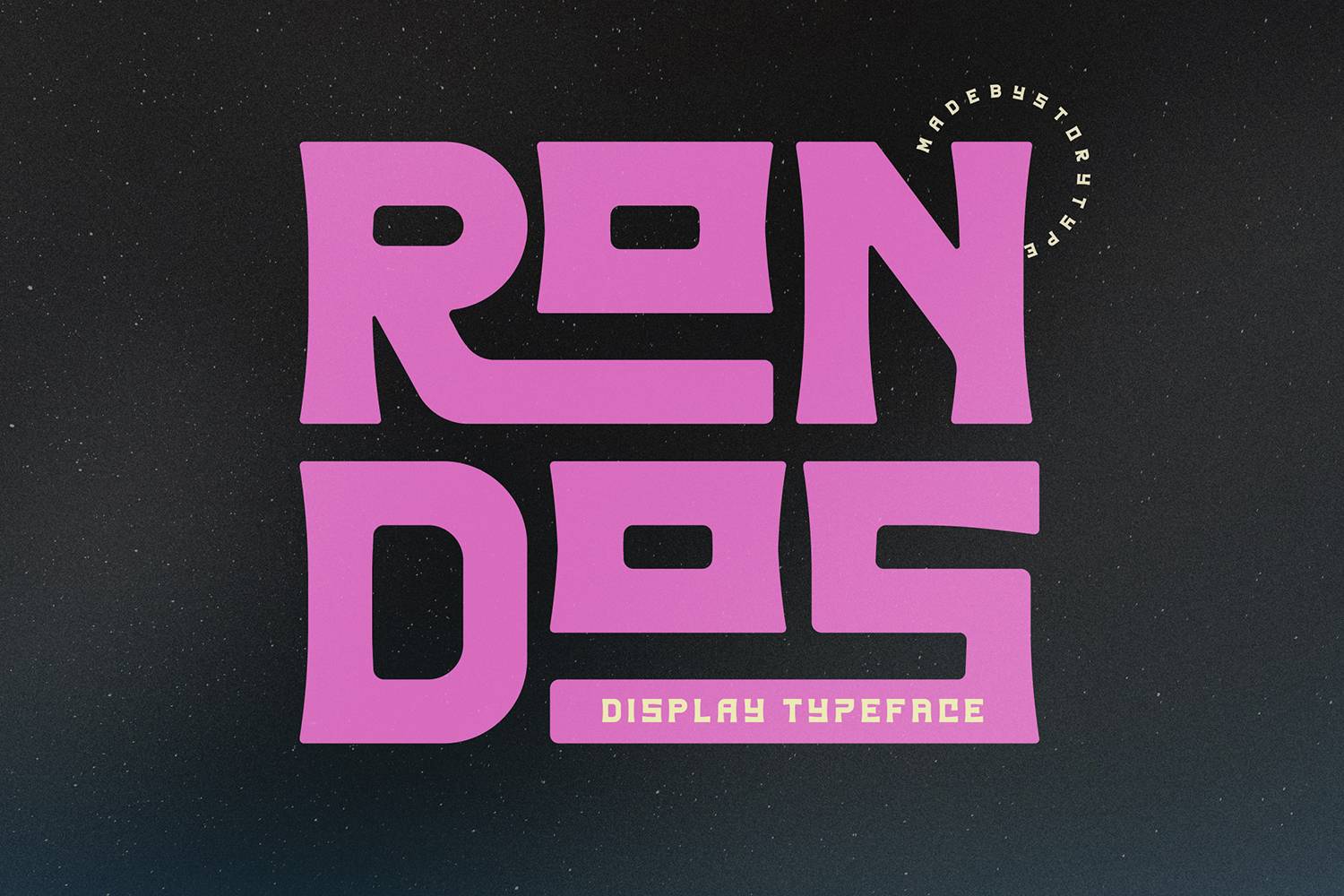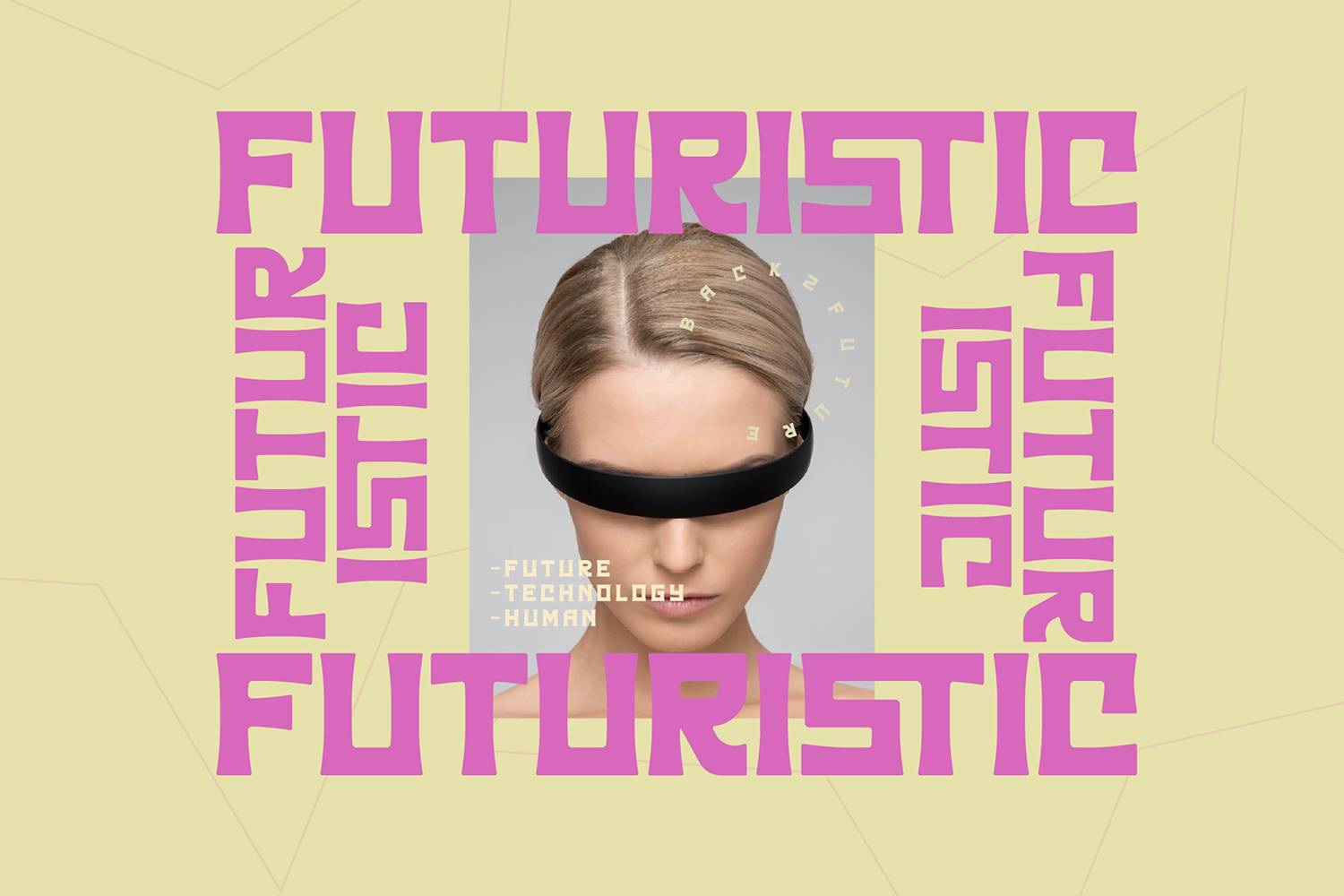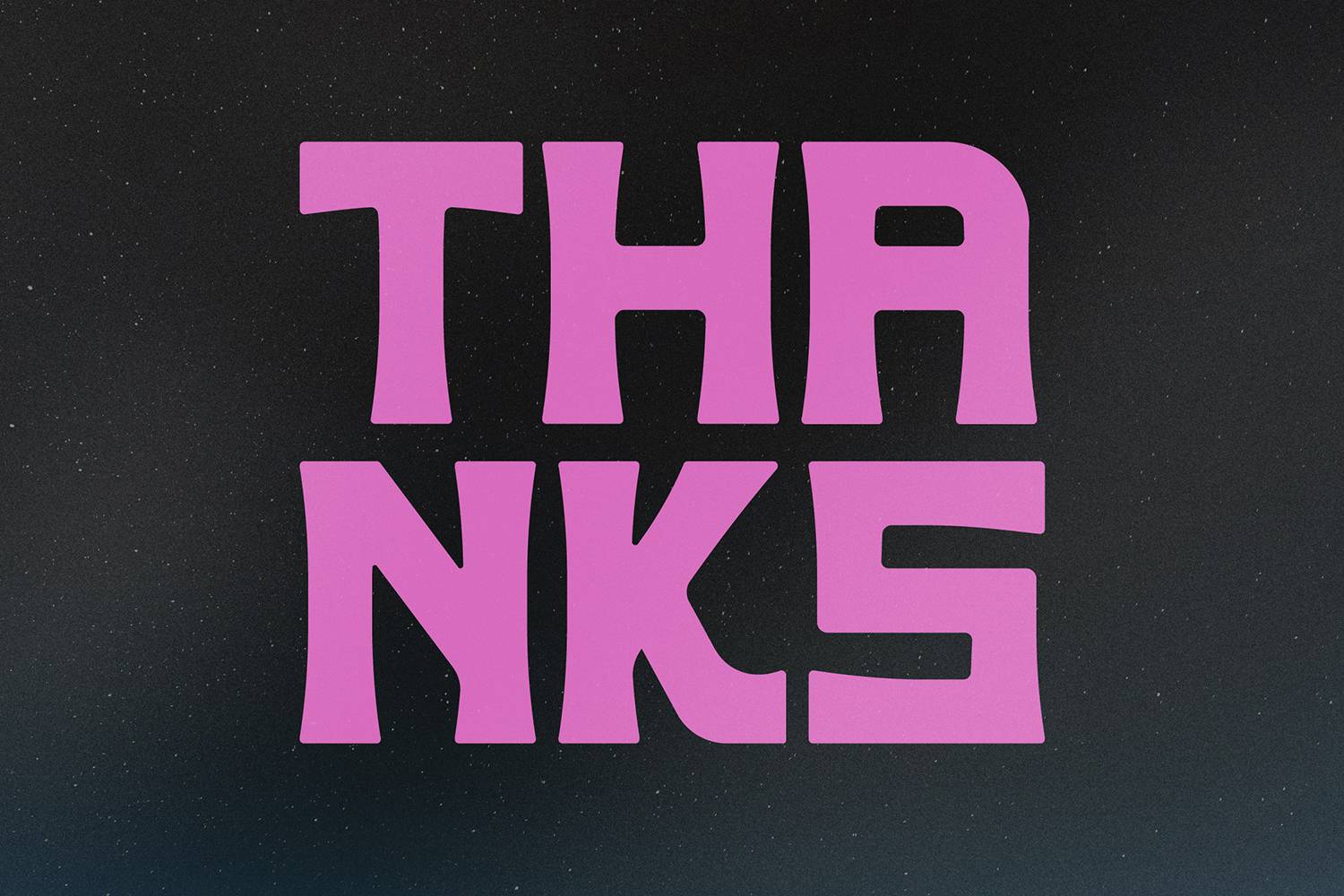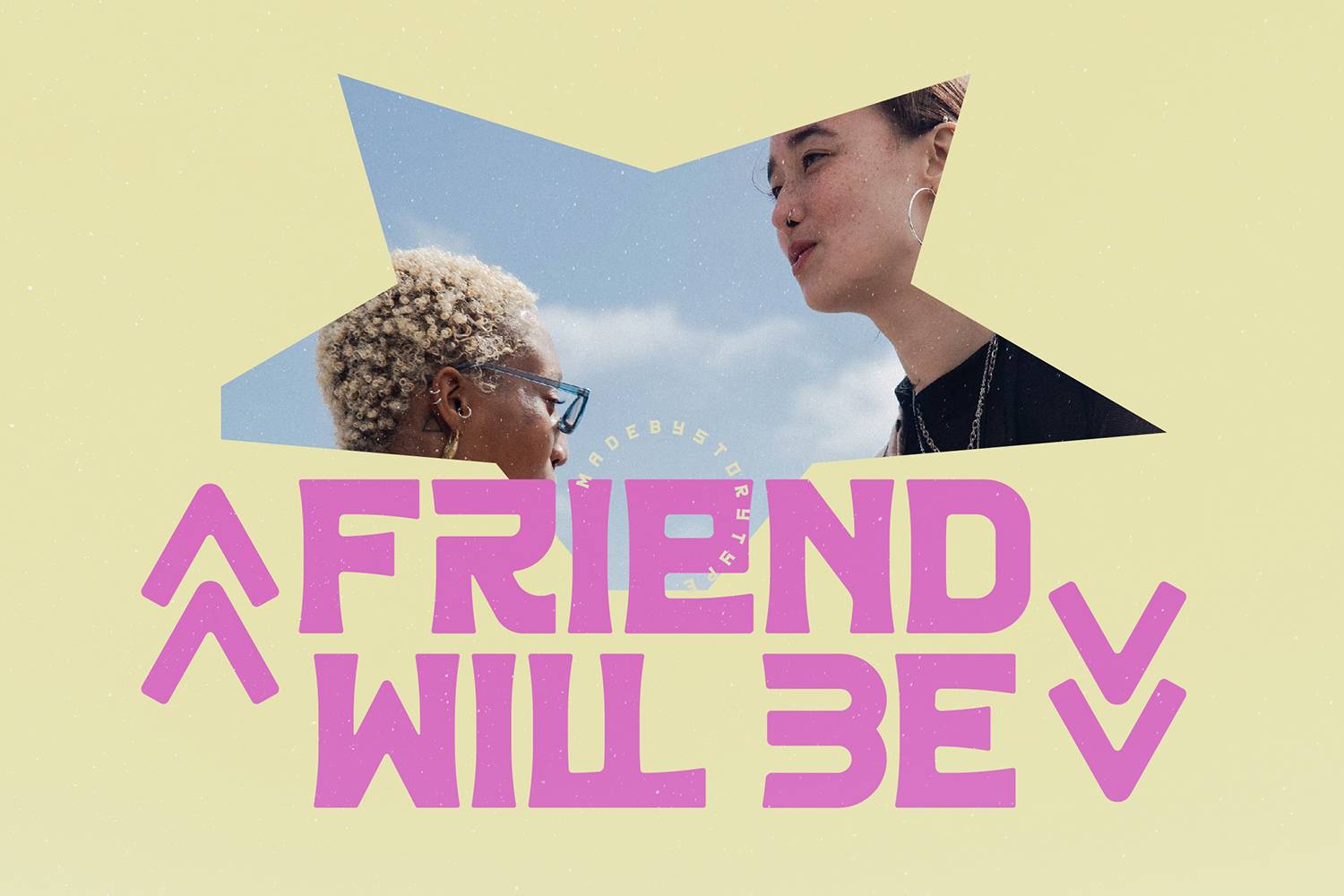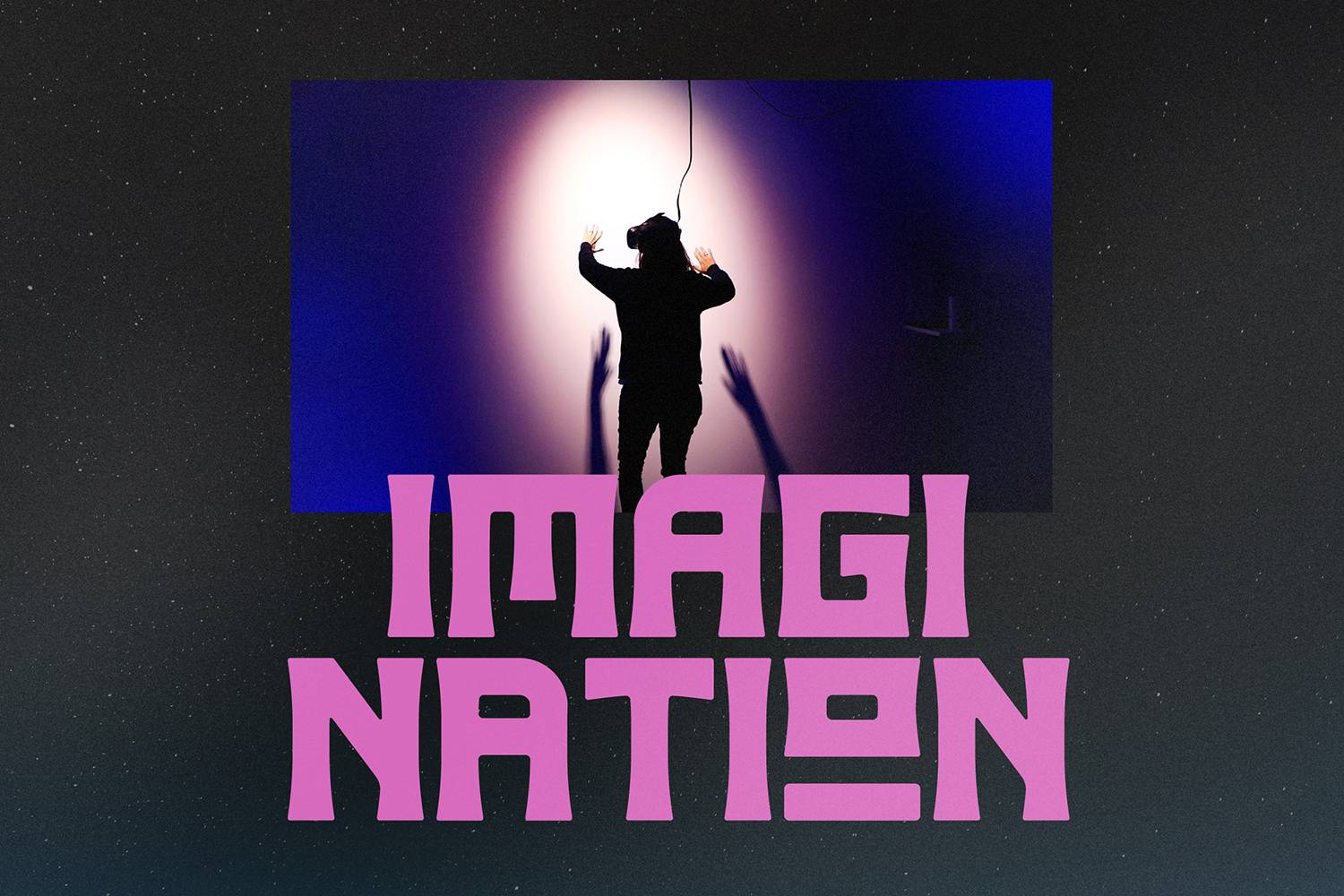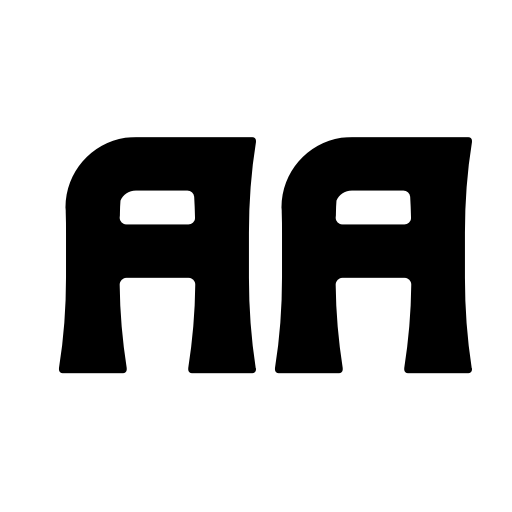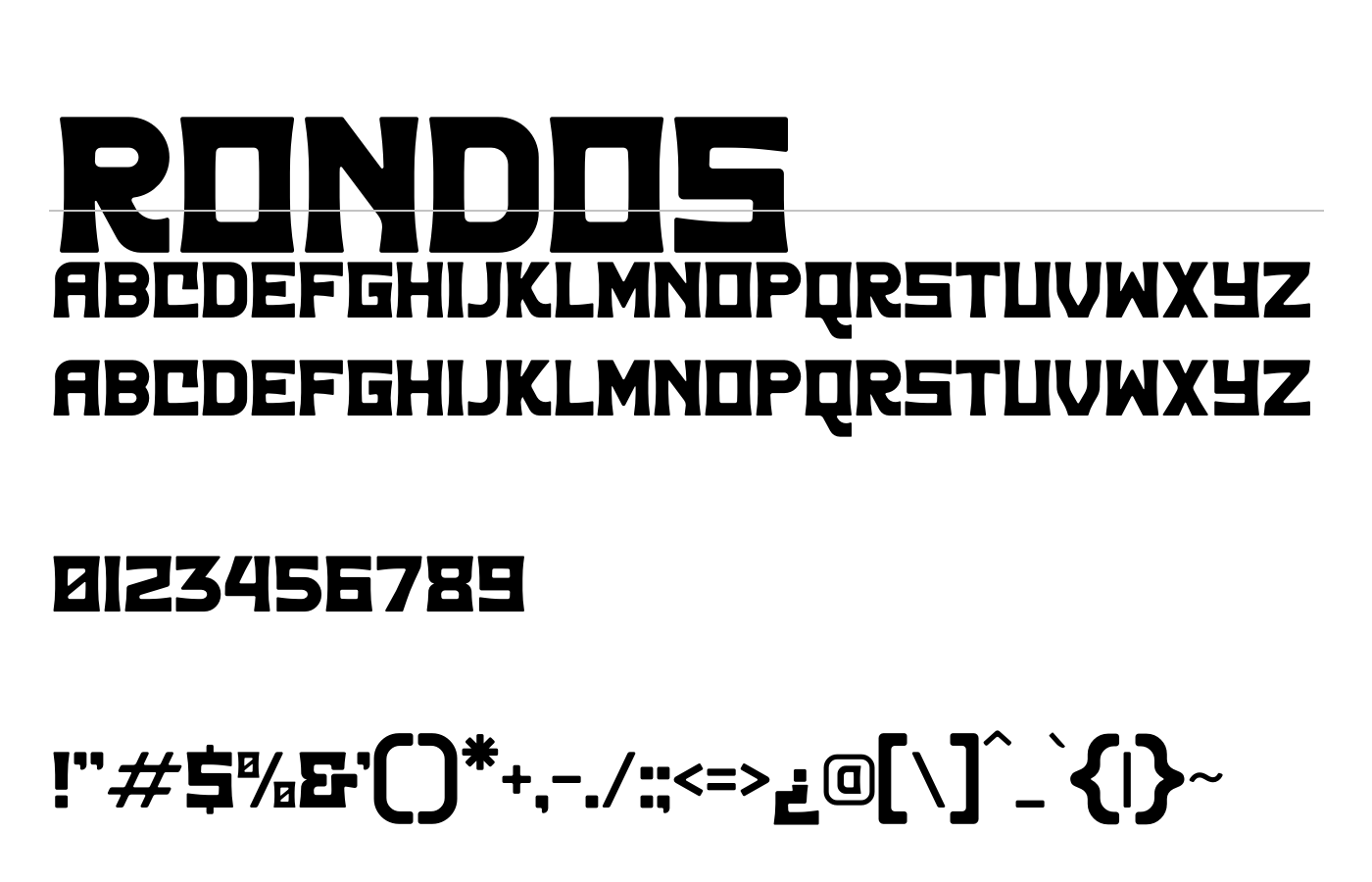
Rondos is a bold and condensed sans serif font with a strong, modern personality, characterized by its thick, blocky letterforms and subtle geometric curves. Its high x-height and unique quirky details, like angled strokes and distinctive terminals, give it a playful yet sturdy feel, making it ideal for impactful headlines, logos, and creative branding projects that want to stand out with a contemporary and energetic vibe. This font works well in designs where strong readability and a striking, edgy appearance are required.
Rondos Font
About Rondos Font